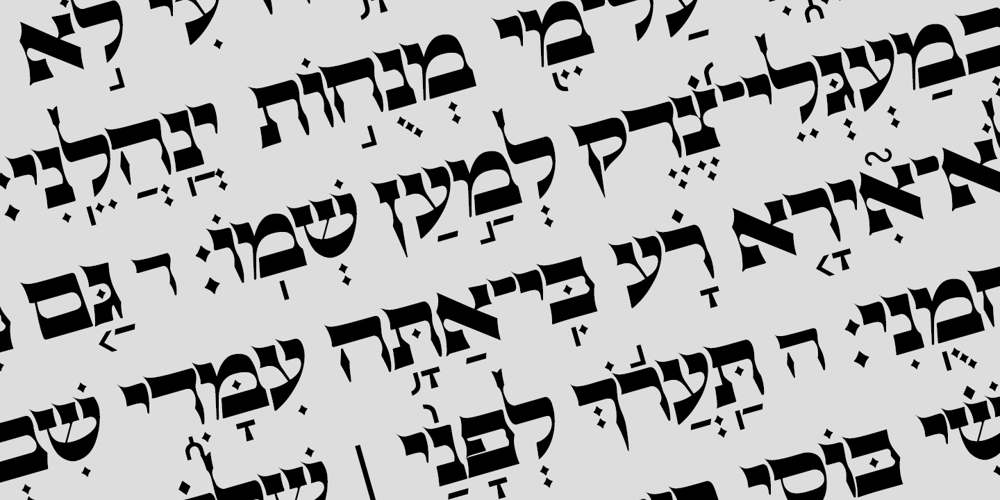
Hebrew Caligraphic Stam Font Family was designed by Sami Artur Mandelbaum and published by Samtype. Hebrew Caligraphic Stam contains 2 styles and family package options. Beautiful font, good for posters and small books and folders.This is a complete font with all diacritic marks (Nikud and Taamim) and also shevana, kamatz katan, dagesh hazak and holam chaser.